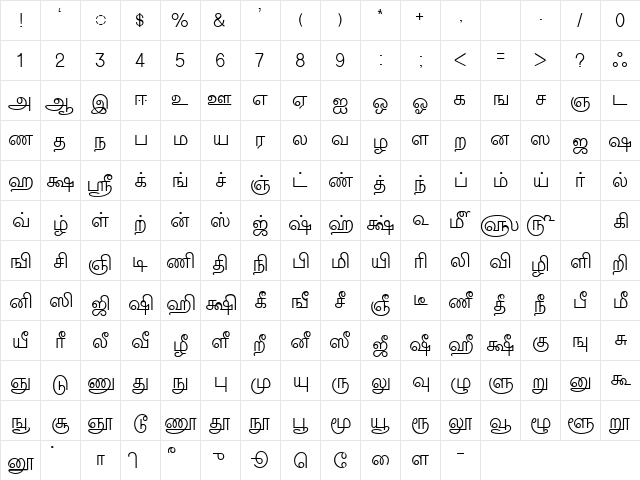
TM-TTValluvar Normal
Design Context for TM-TTValluvar Typeface
TM-TTValluvar is a composed and adaptable typeface that performs quietly and consistently across a wide range of design contexts.